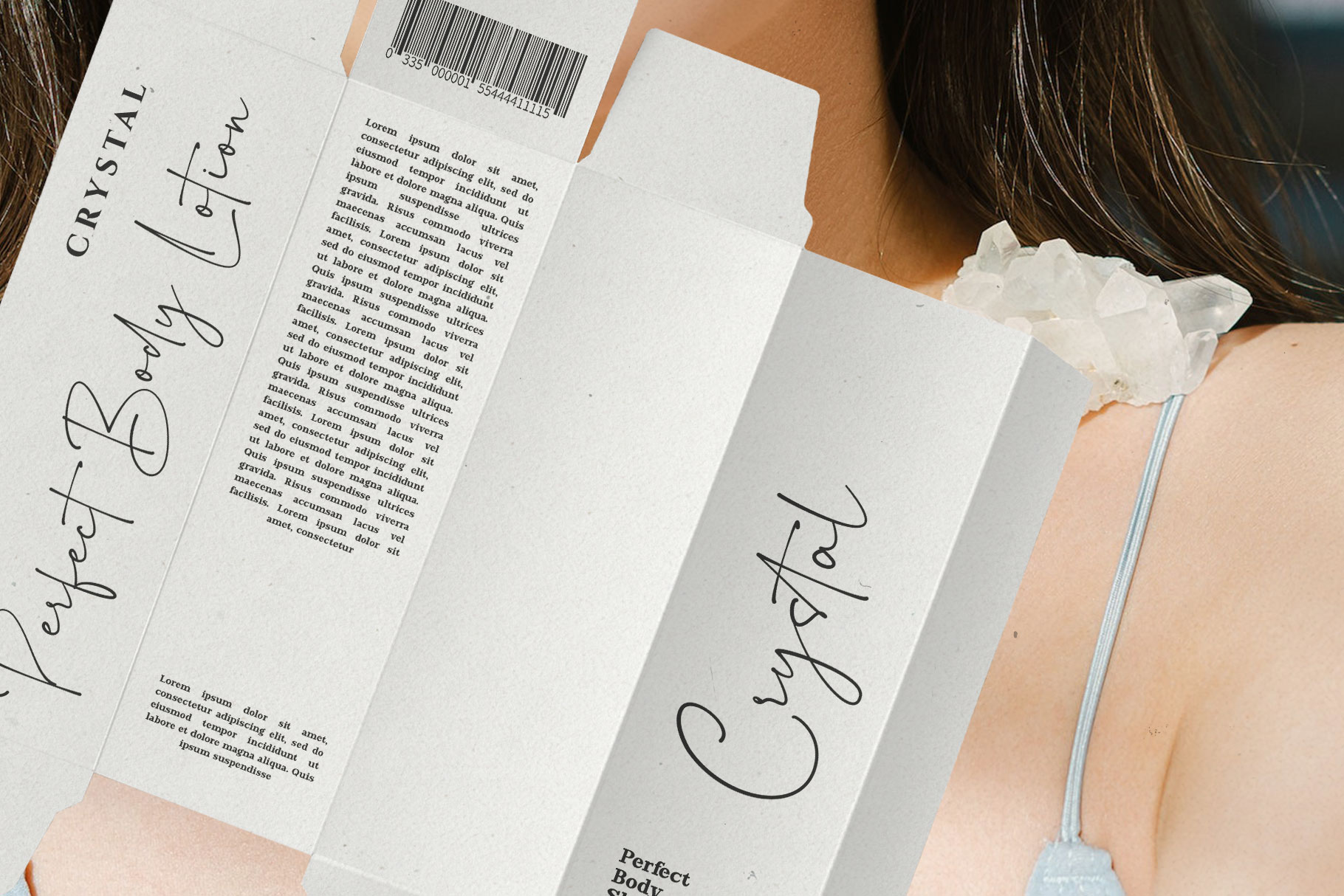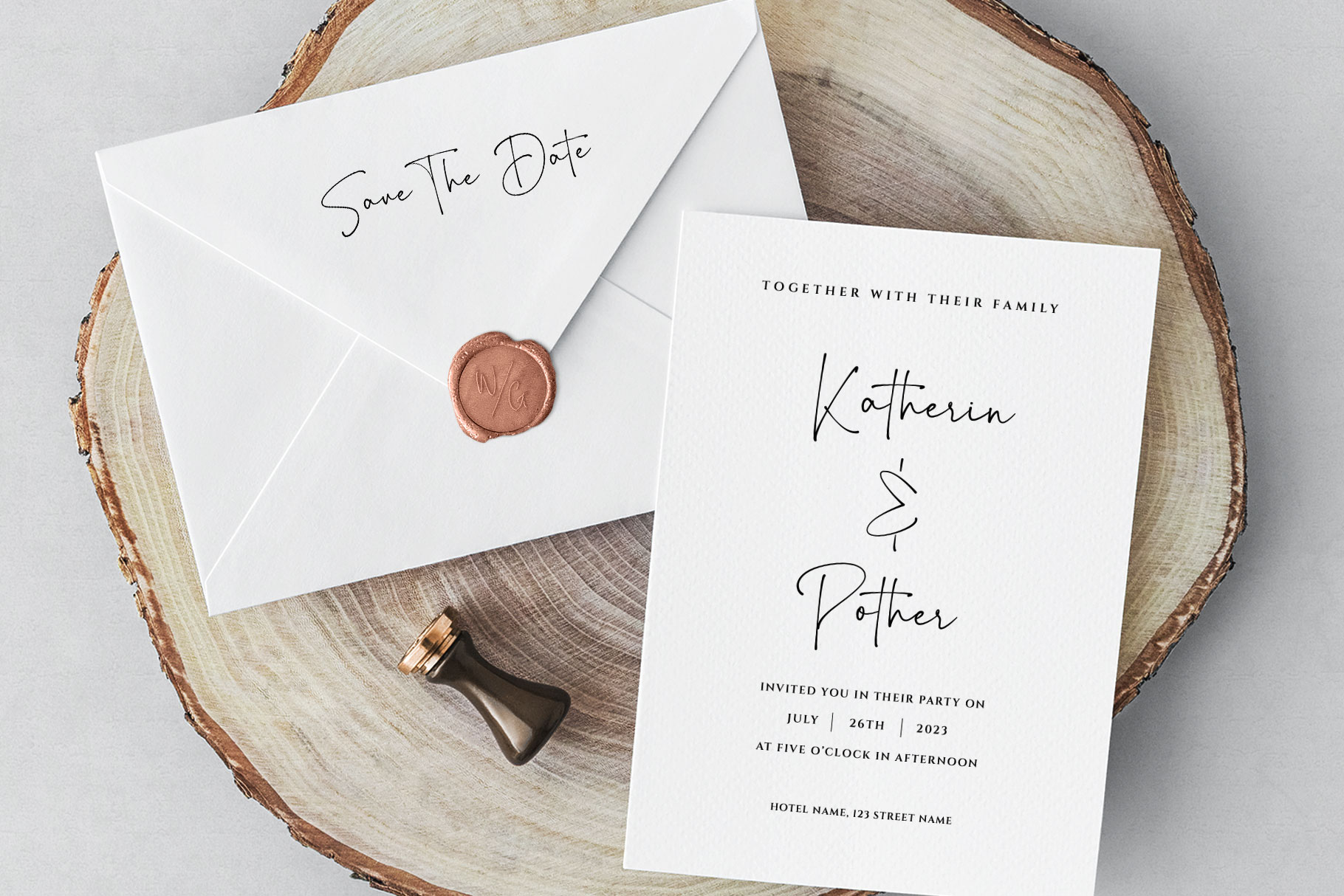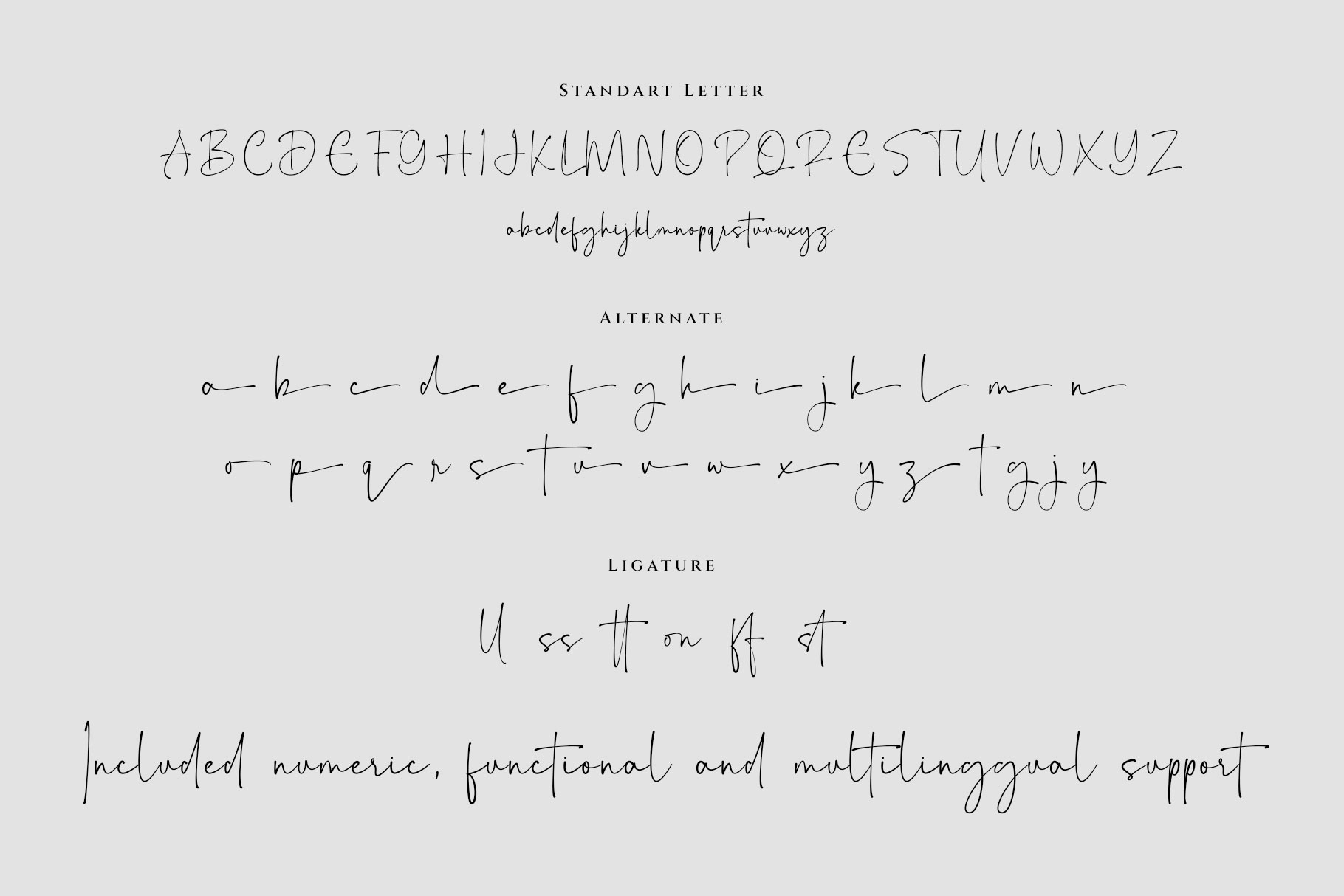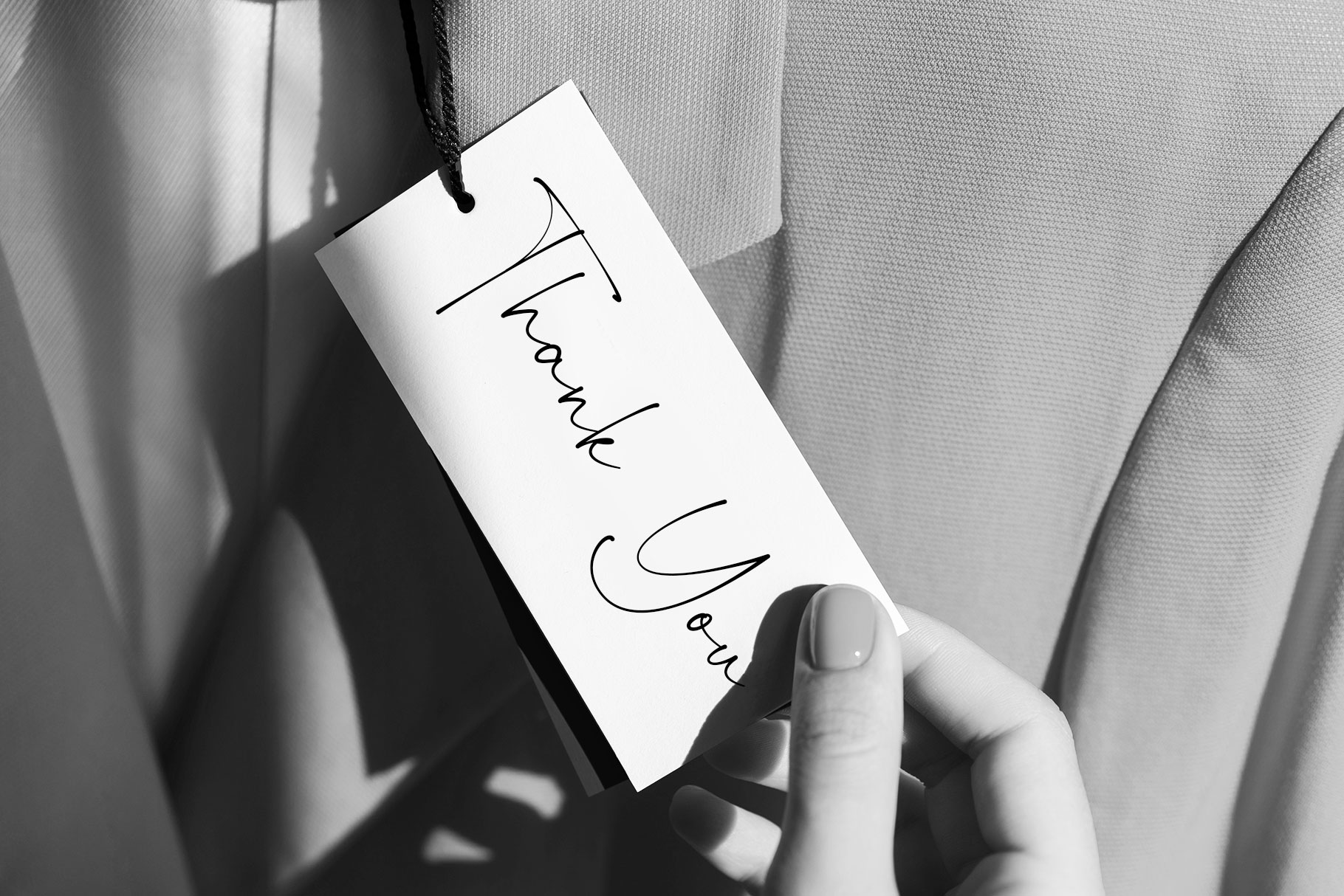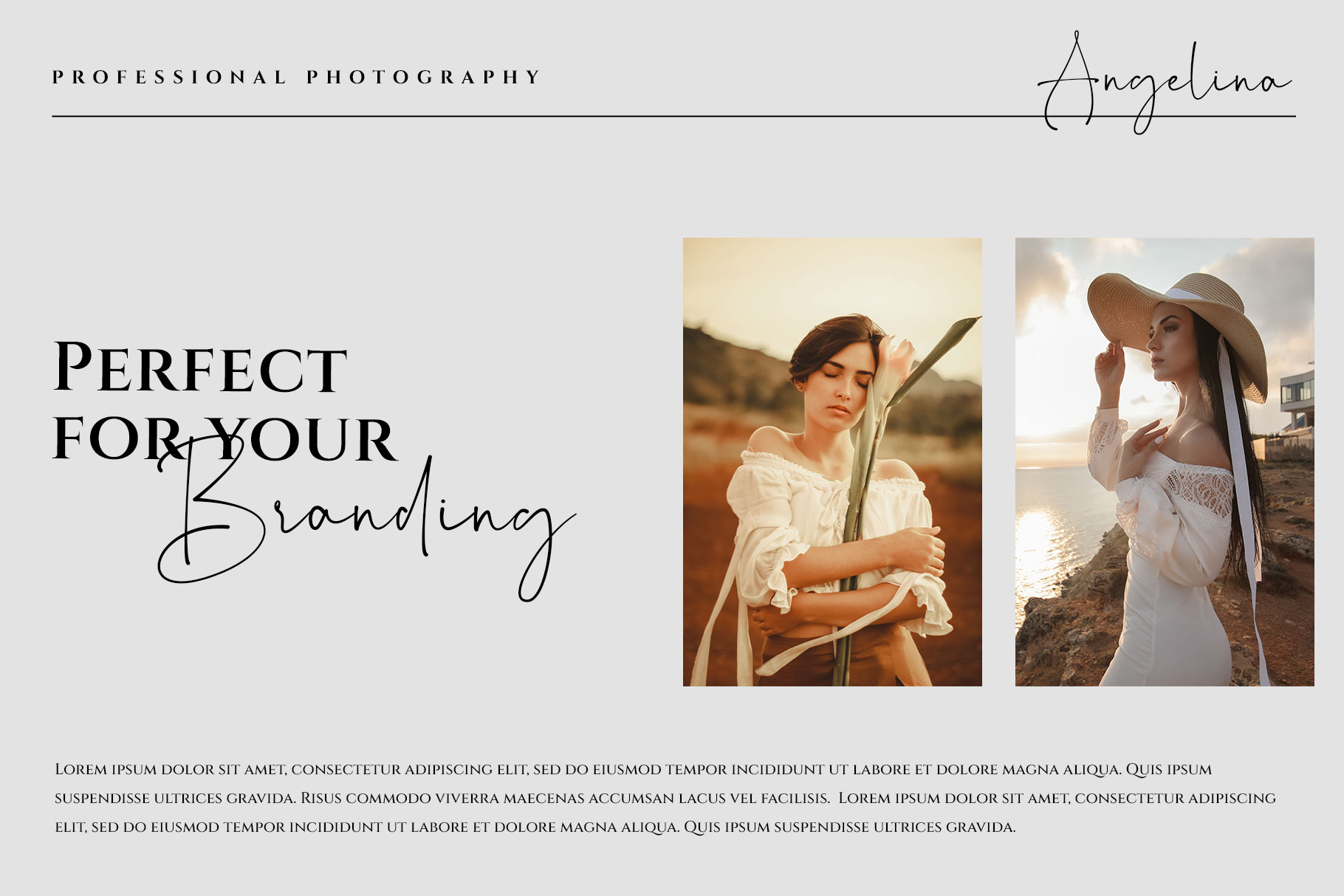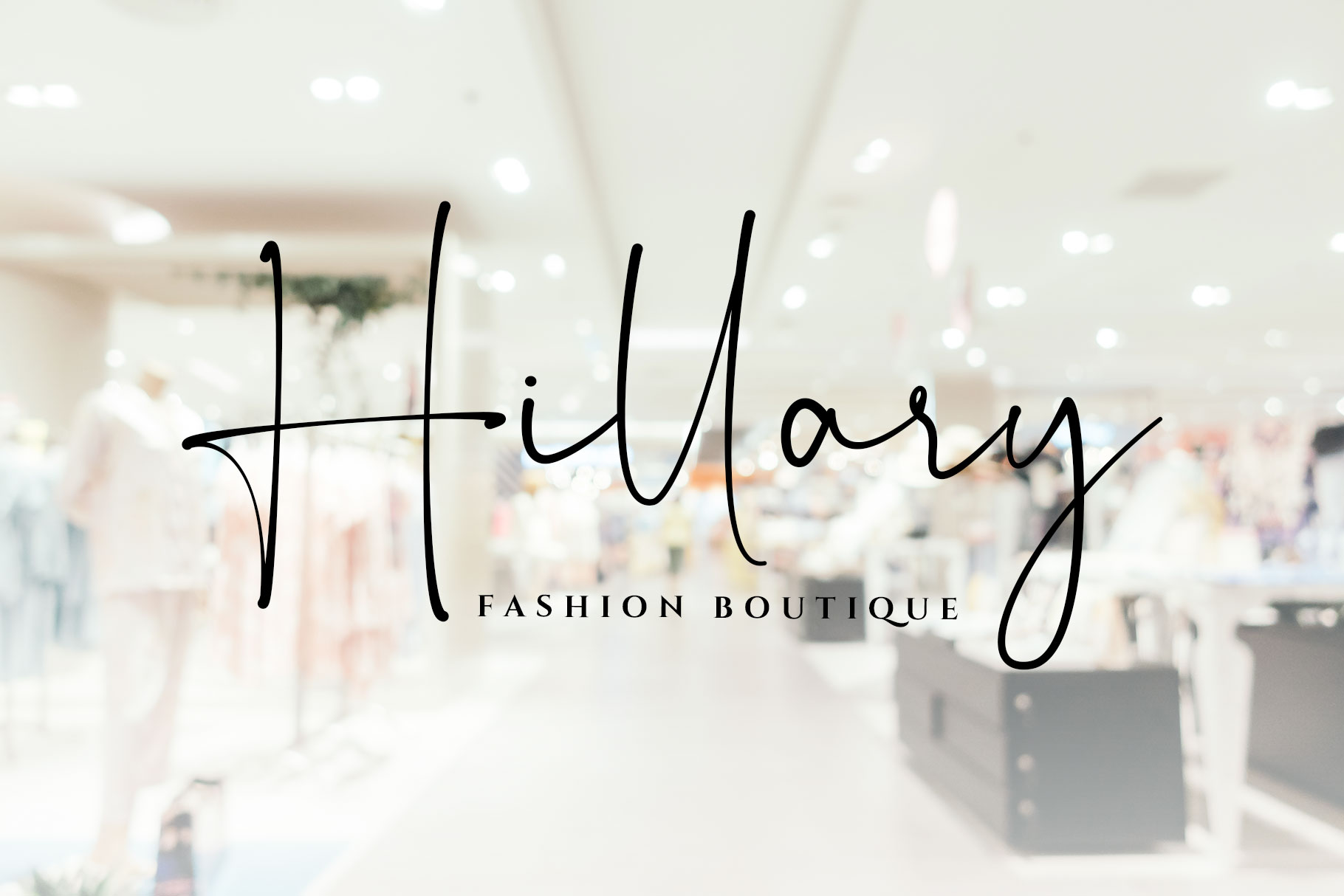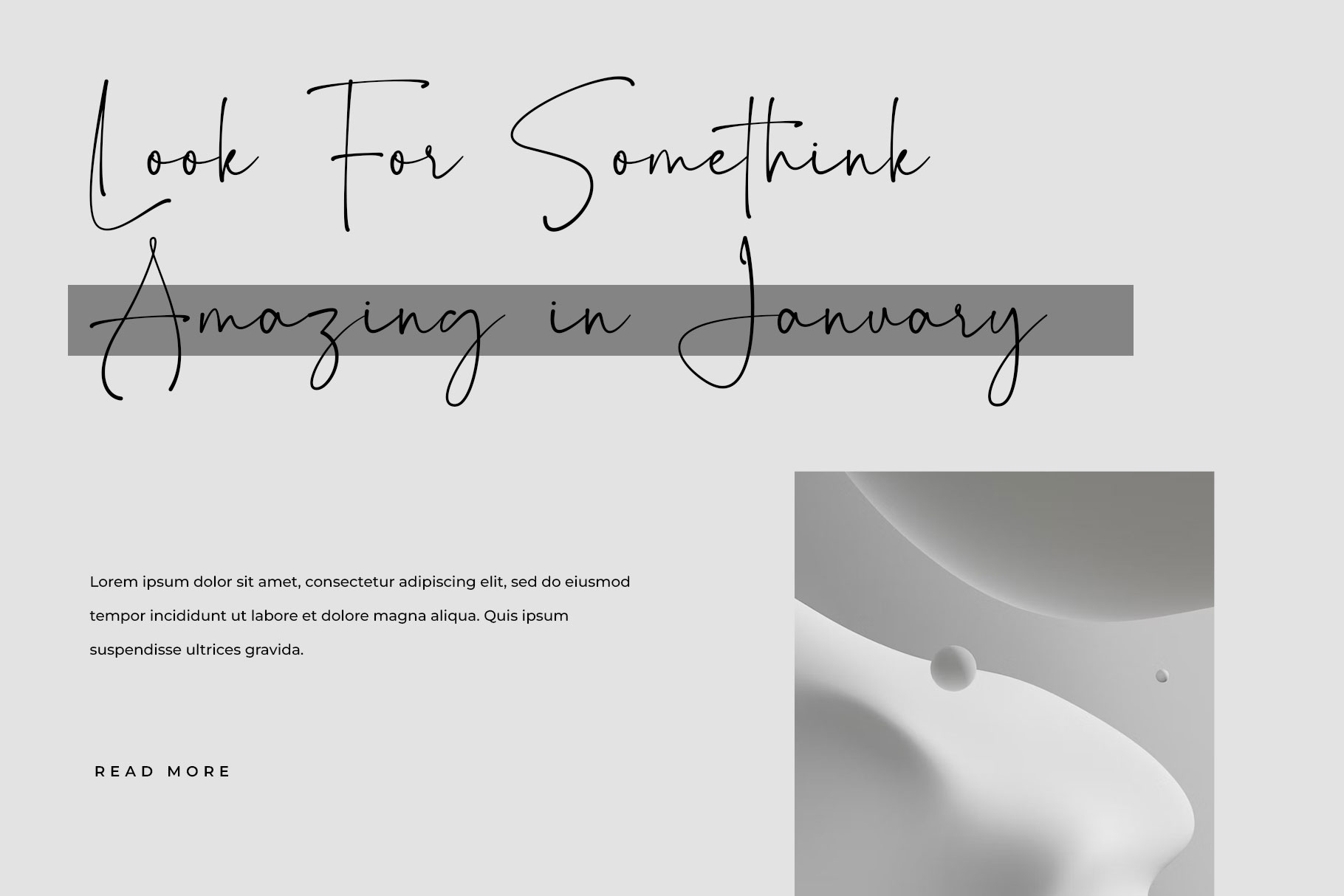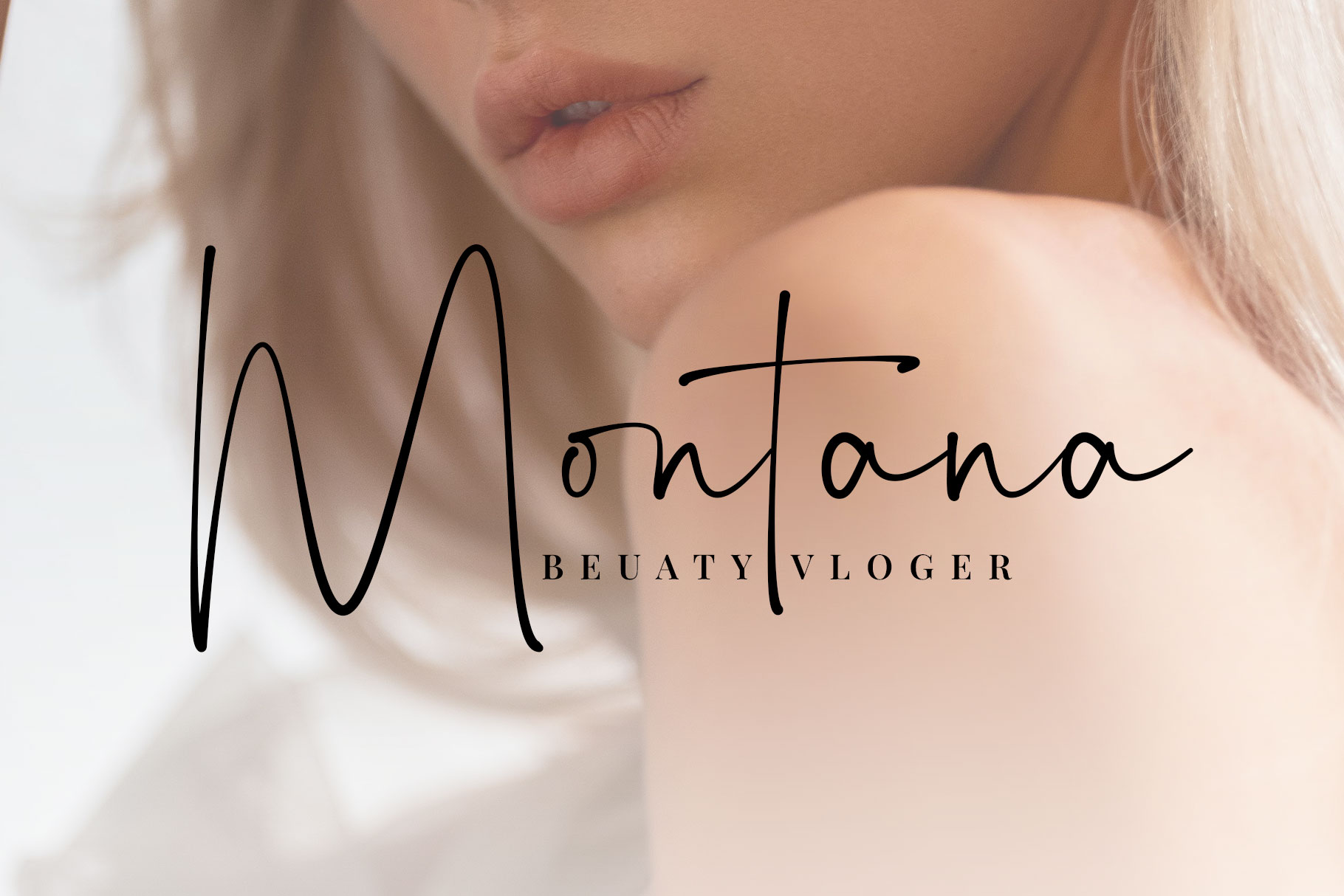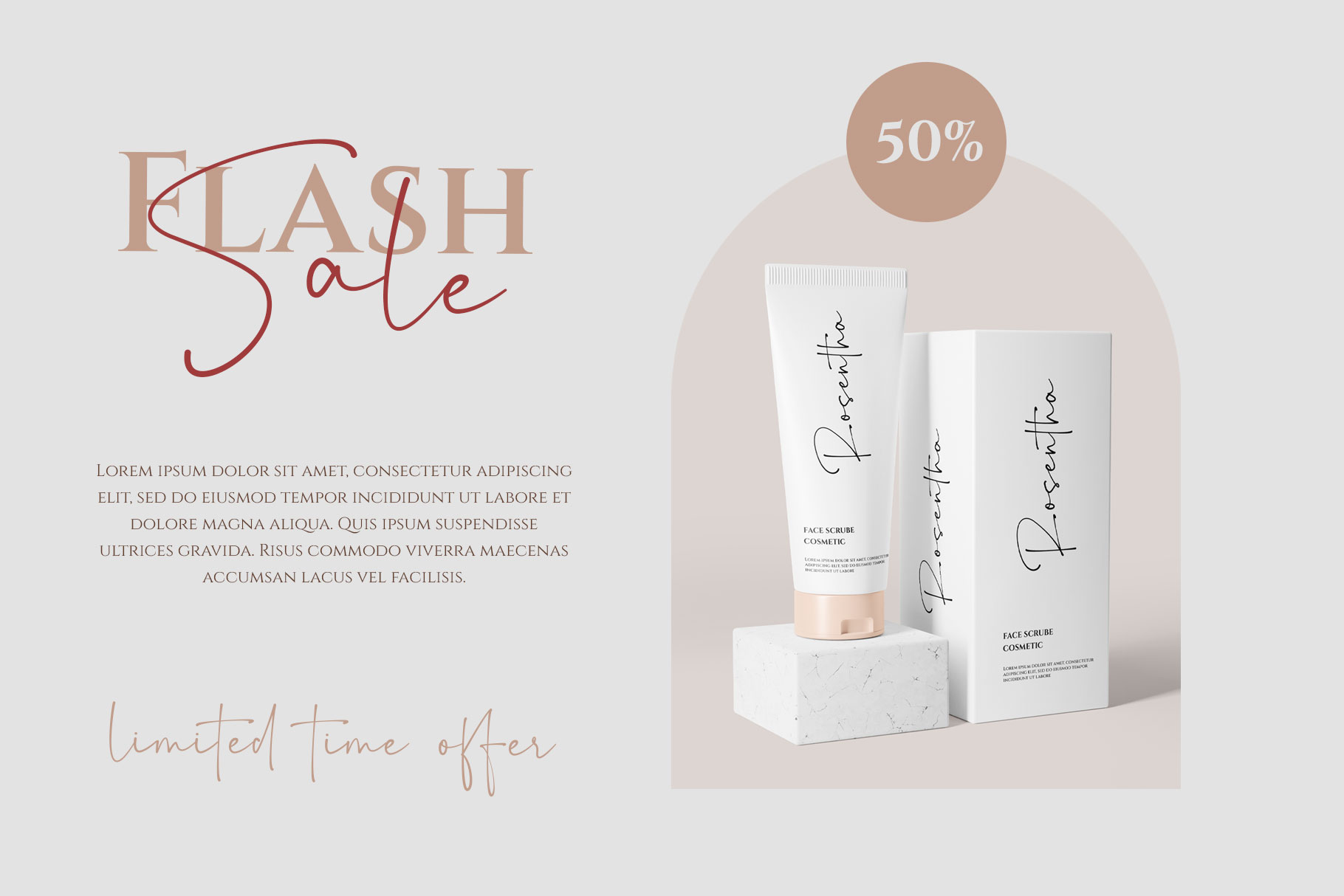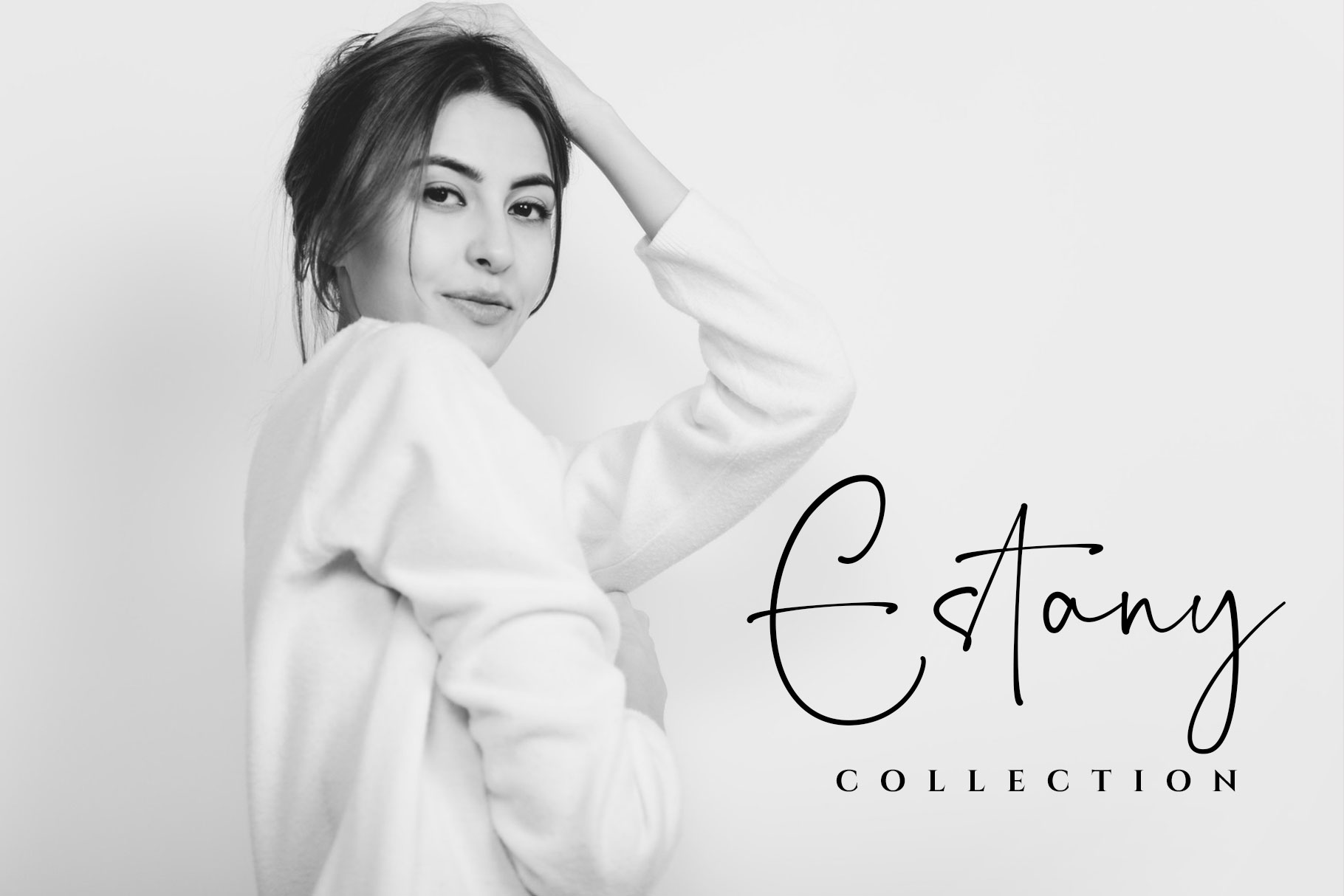
Graystone Elegant Signature Font
Graystone is signature font which can be interpreted professional with stylish and natural curve. We keep this font looks modern, minimalist, elegant, readable, stylish, catchy and easy to use. Graystone come with alternate, ligature and multilingual support.
Graystone is a beautiful choice for any creative endeavor, chic, lifestyle design such as logos, title, watermark on photography, cover, branding, display and magazine, wedding event, quotes, album cover, business card, corporate, business project and many other design project. Graystone here to make your work to high level!!!